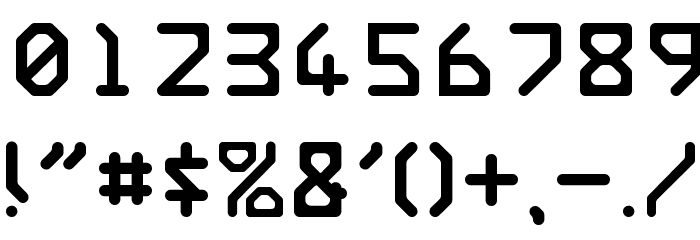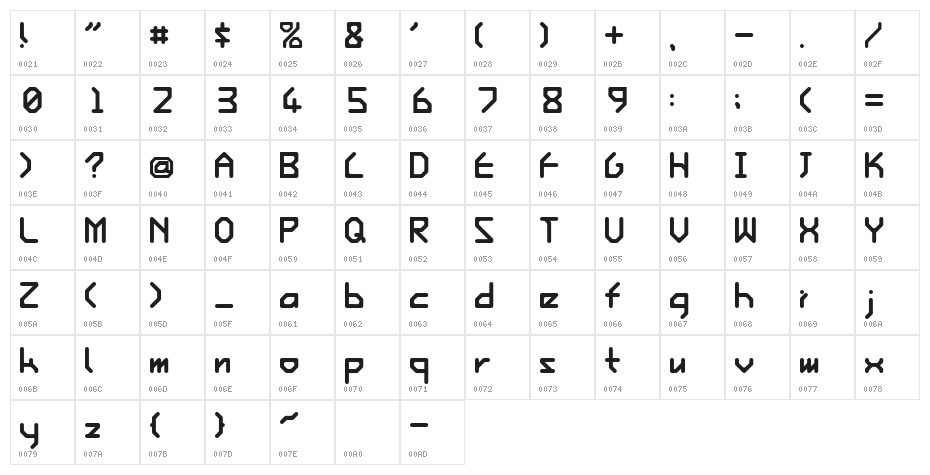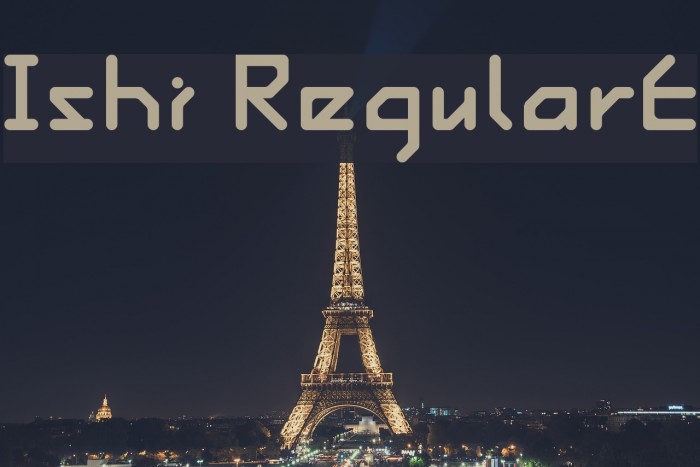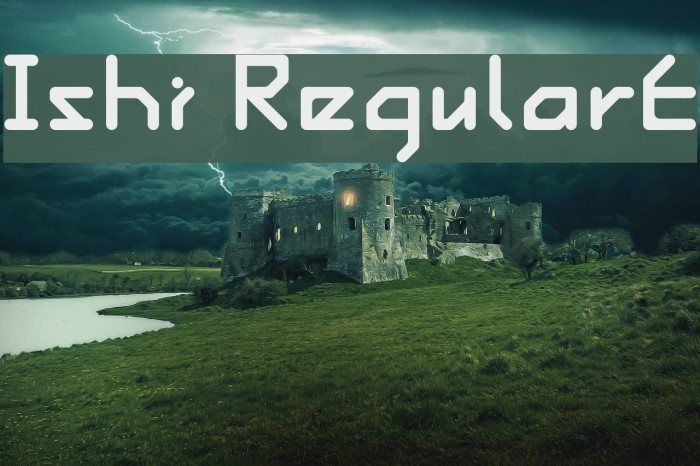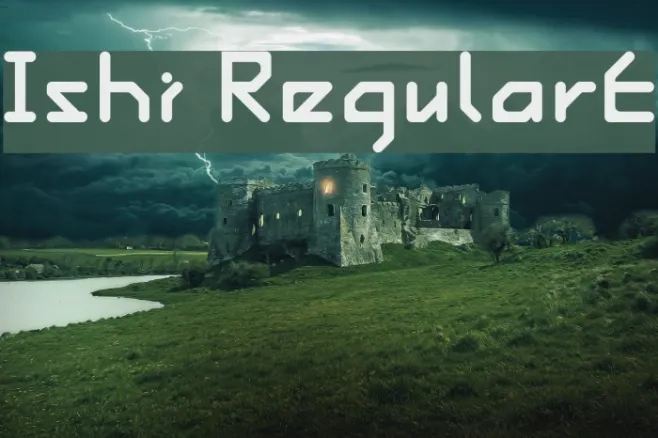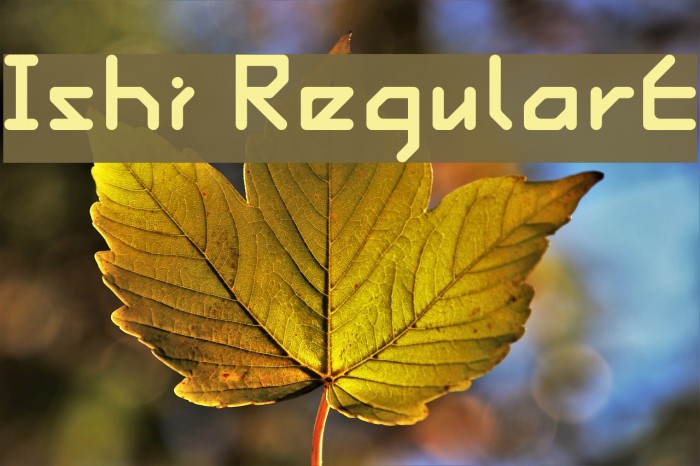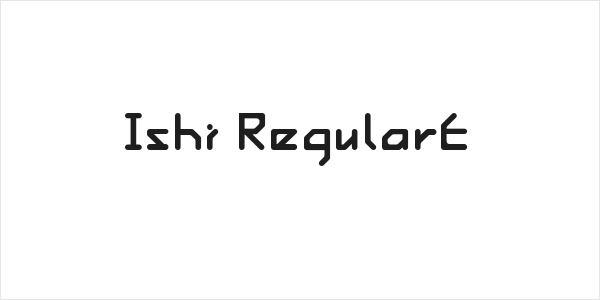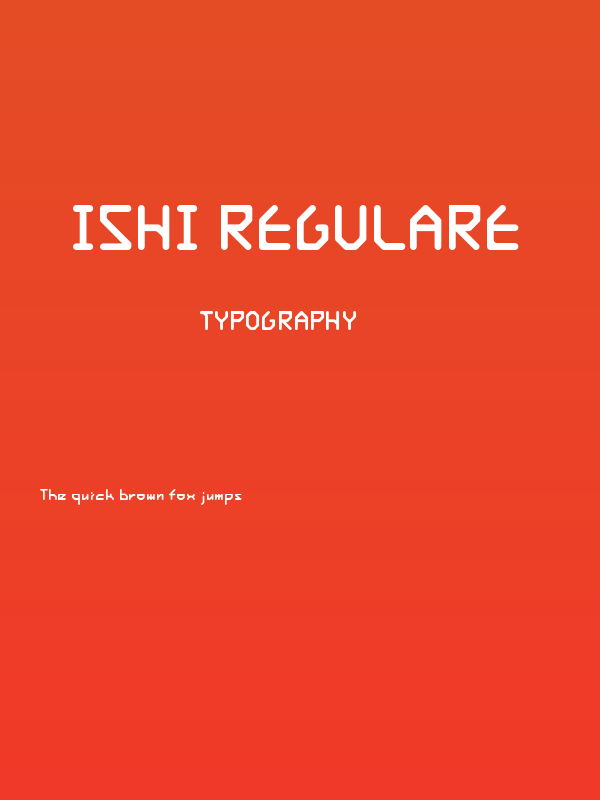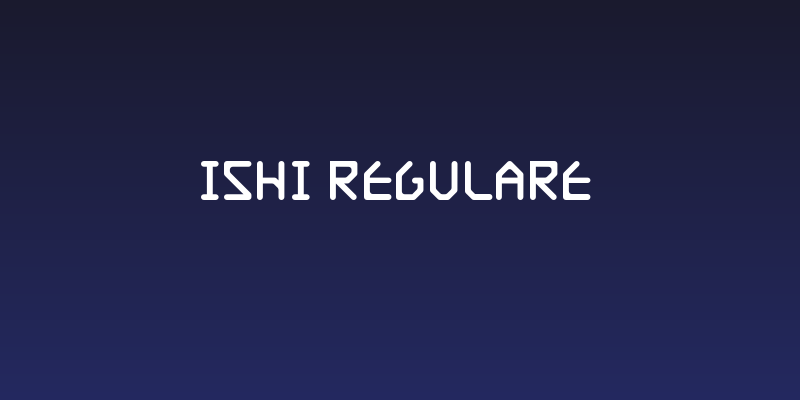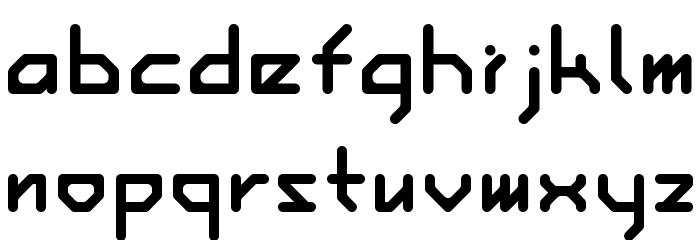
Ishi RegularE Font
Ishi RegularE Description
This font features a unique, geometric style with a modern twist. The characters are bold and have a distinct angular design, giving them a futuristic appearance. The uppercase letters are uniform in height, while the lowercase letters maintain a consistent baseline, enhancing readability. Numbers and special characters follow the same angular theme, ensuring a cohesive look across all text. The font's boldness and geometric shapes make it stand out, making it ideal for eye-catching designs.
| Proposed Projects | Ideal for futuristic designs, tech branding, video game interfaces, and modern posters. |